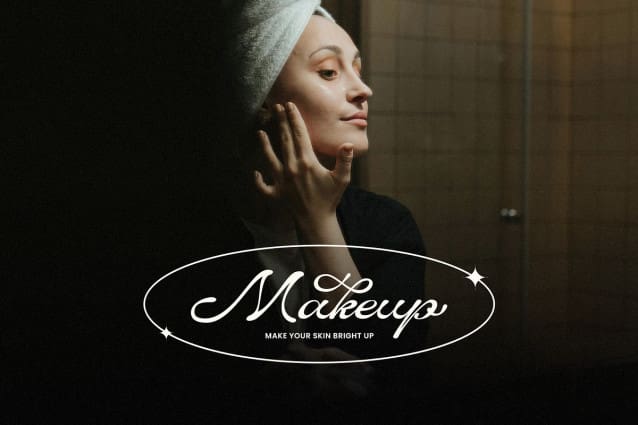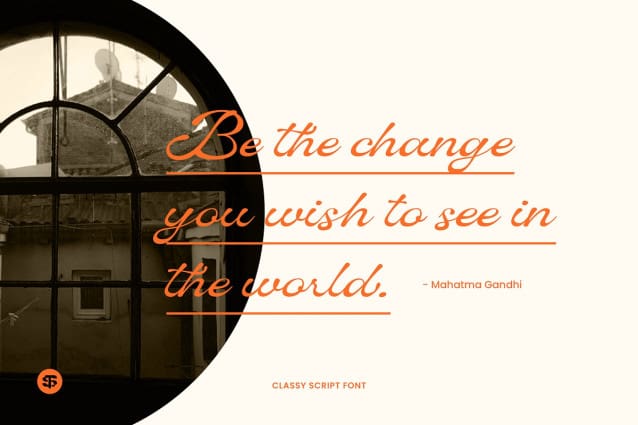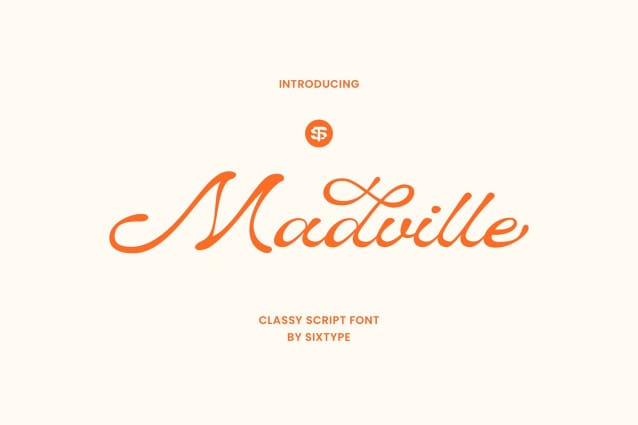
Madville Classy Script Font
Madville Classy Script Font is a unique and stylish script font that is perfect for adding a touch of personality to your designs. Its playful characters and imperfections give it a handwritten feel, making it ideal for creating logos, quotes, invitations, and more.